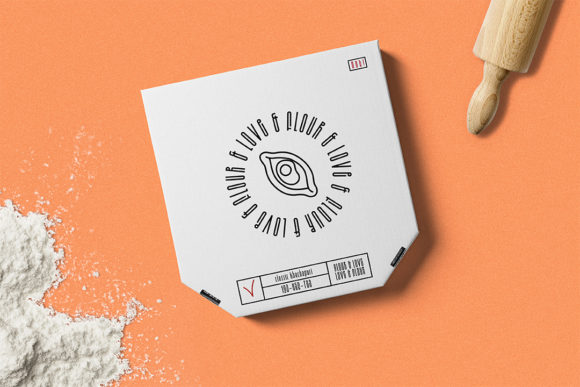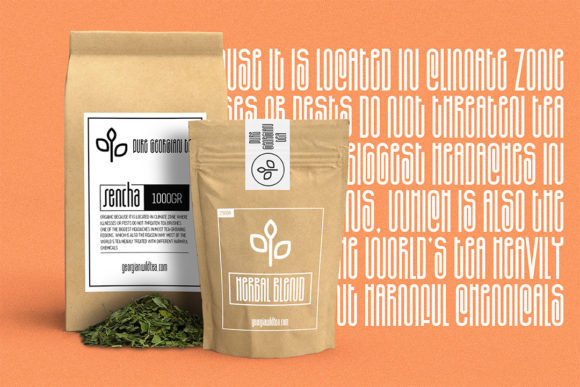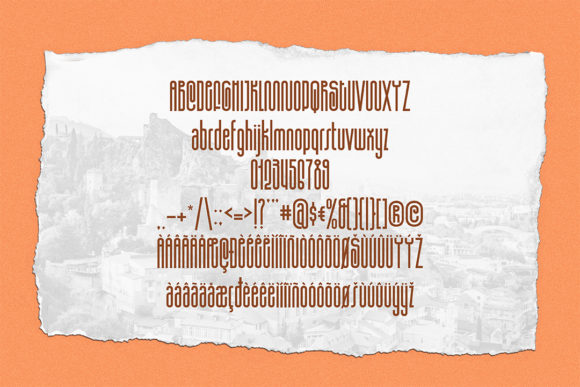
Introducing Ajika Font: Elevate Your Designs with a Modern and Clean Sans Serif
In the world of design, typography plays a crucial role in conveying messages, expressing creativity, and capturing the audience’s attention. Among the numerous fonts available, Ajika Font stands out as a modern and clean lettered sans serif font that can instantly elevate your creations. With its simple yet strong visual effect, Ajika Font is an excellent choice for designers and crafters looking to make their work more appealing.
What is Ajika Font?
Ajika Font is a sans serif font, characterized by its clean and modern design. The font’s simplicity is its greatest strength, making it versatile and easy to read. Ajika Font’s sleek lines and curves create a visually appealing effect that can enhance any design project, from digital media to print materials.
Key Features of Ajika Font
- Modern and Clean Design: Ajika Font boasts a contemporary look that fits well with current design trends.
- Simple yet Impactful: Despite its simplicity, Ajika Font has a strong visual effect that can make your designs stand out.
- Versatile: This font can be used across various design projects, including logos, headings, and body text.
- Easy to Read: The clean lines and sans serif design make Ajika Font highly legible.
Why Choose Ajika Font?
Choosing the right font for your design project can be overwhelming, given the vast options available. However, Ajika Font offers several advantages that make it a preferred choice among designers:
- Enhances Visual Appeal: Ajika Font’s modern design can instantly enhance the visual appeal of your creations.
- Professional Look: The clean and simple design of Ajika Font gives your work a professional and polished look.
- Time-Saving: With Ajika Font, you can achieve a high-quality design look without spending hours on complicated typography.
How to Use Ajika Font in Your Designs
Incorporating Ajika Font into your design projects is straightforward. Here are some tips to get you started:
- Pair with Other Fonts: Experiment with pairing Ajika Font with other fonts to create a unique and engaging visual hierarchy.
- Adjust Font Sizes: Play with different font sizes to emphasize key points and create visual interest.
- Use in Digital and Print Media: Ajika Font is versatile enough to be used in both digital media, such as websites and social media graphics, and print materials, like brochures and posters.
Ajika Font is a powerful tool for designers and crafters looking to elevate their work with a modern and clean sans serif font. Its simplicity, strong visual effect, and versatility make it an excellent choice for a wide range of design projects. By incorporating Ajika Font into your designs, you can enhance visual appeal, achieve a professional look, and streamline your design process.
Whether you’re working on a branding project, creating digital content, or designing print materials, Ajika Font can help you achieve your design goals. So, why wait? Explore the possibilities of Ajika Font today and take your designs to the next level.